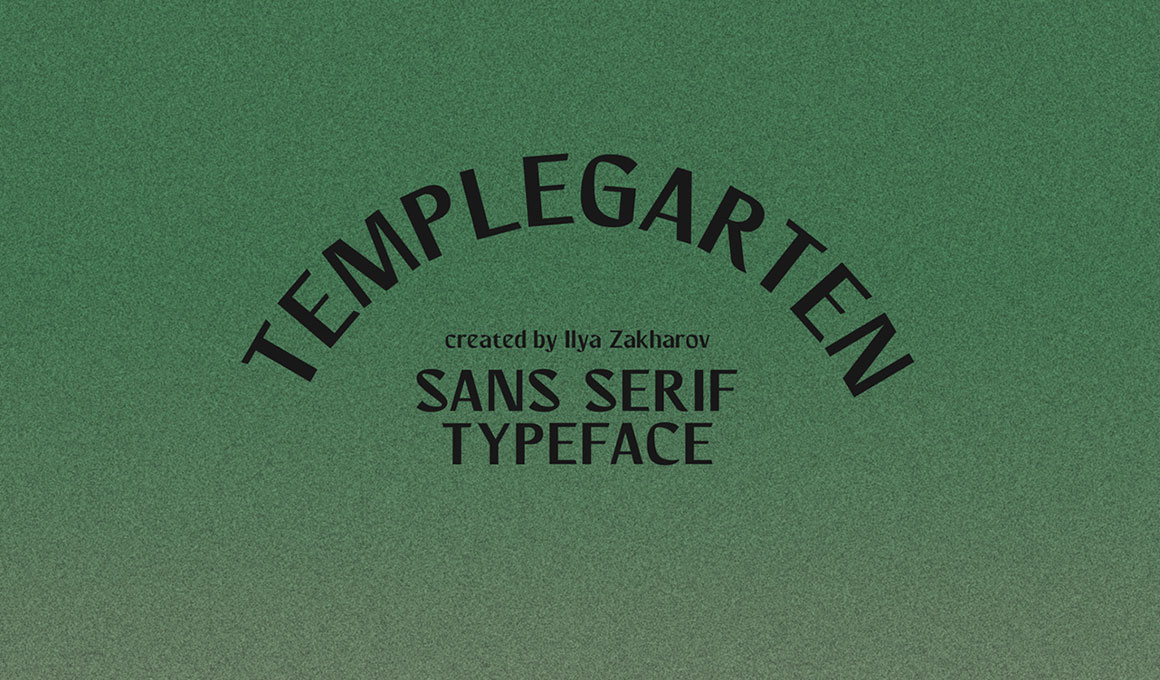
Templegarten Free Font
Introducing Templegarten – free sans serif typeface with a gothic mood. The font works great both for text and display use. It’s also has Latin and Cyrillic support.